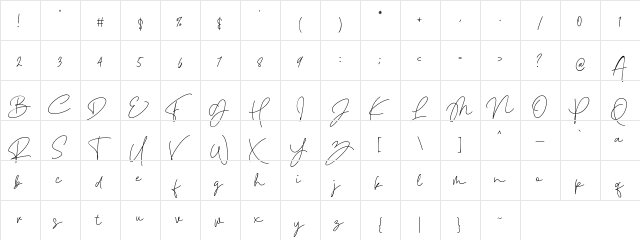
Befront Regular
Design Context for Befront Typeface
Befront is a composed and adaptable typeface that performs quietly and consistently across a wide range of design contexts.
Pro Tip: Pair Befront with a font of contrasting weight or personality to build a more expressive typographic hierarchy.